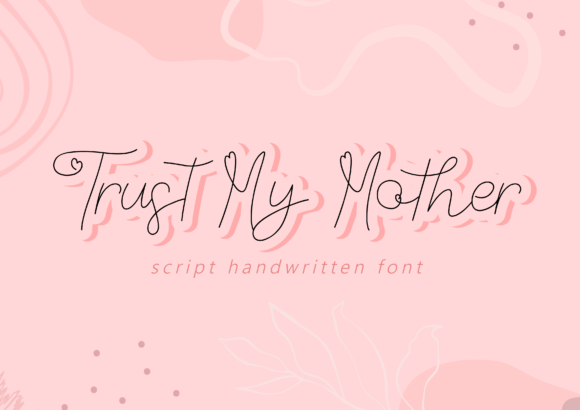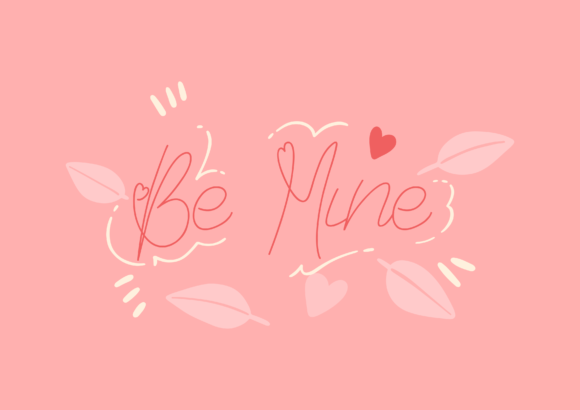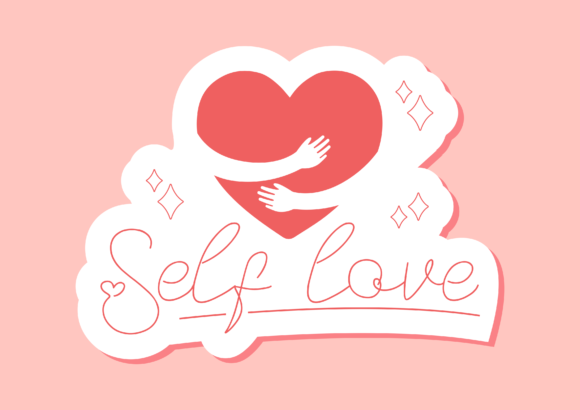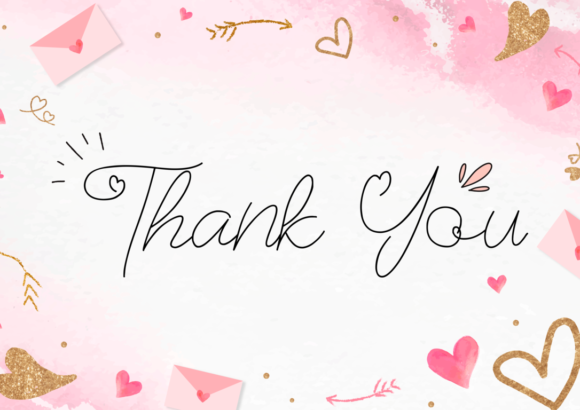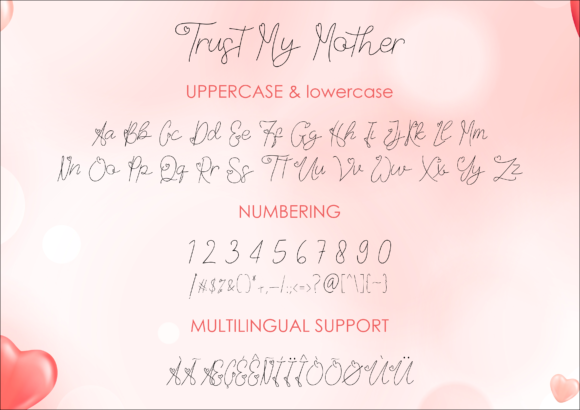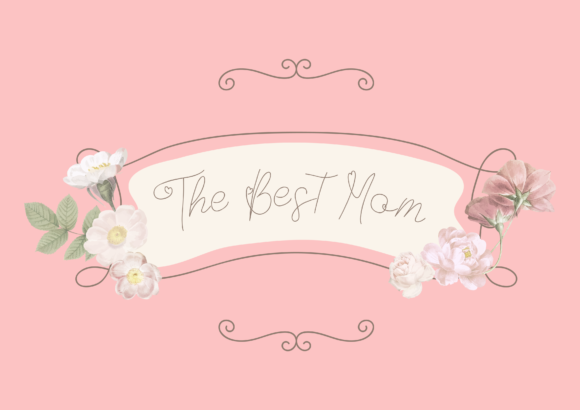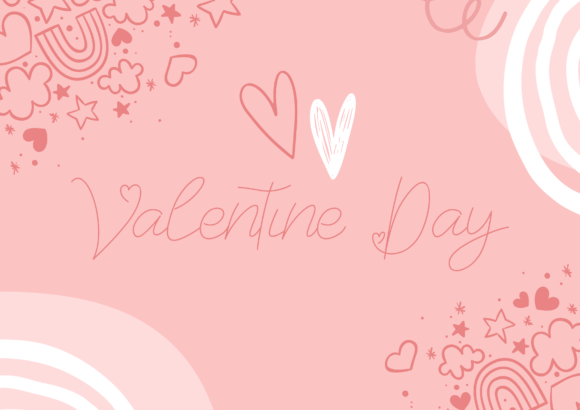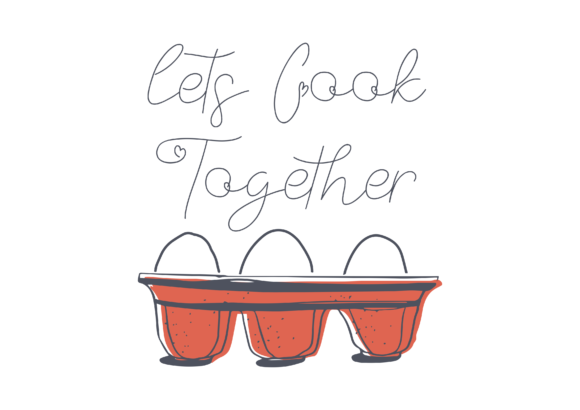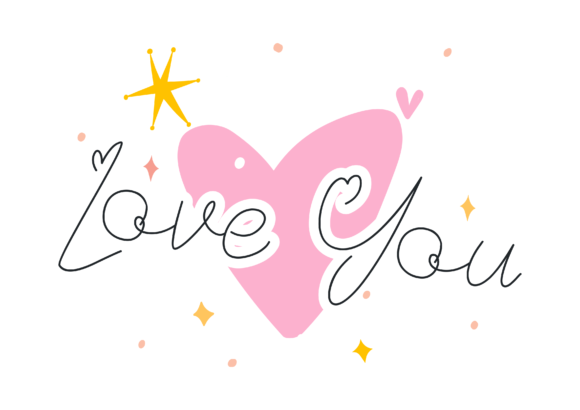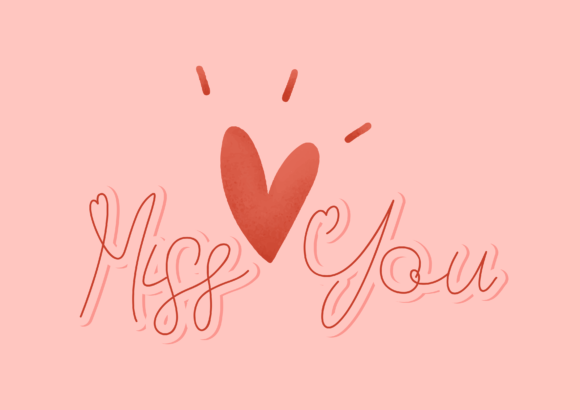
Trust My Mother Font
Trust My MotherĀ is a chic, refined script font that emanates sophistication and elegance. Its stylish alternates and ligatures make this font the perfect match for any project.